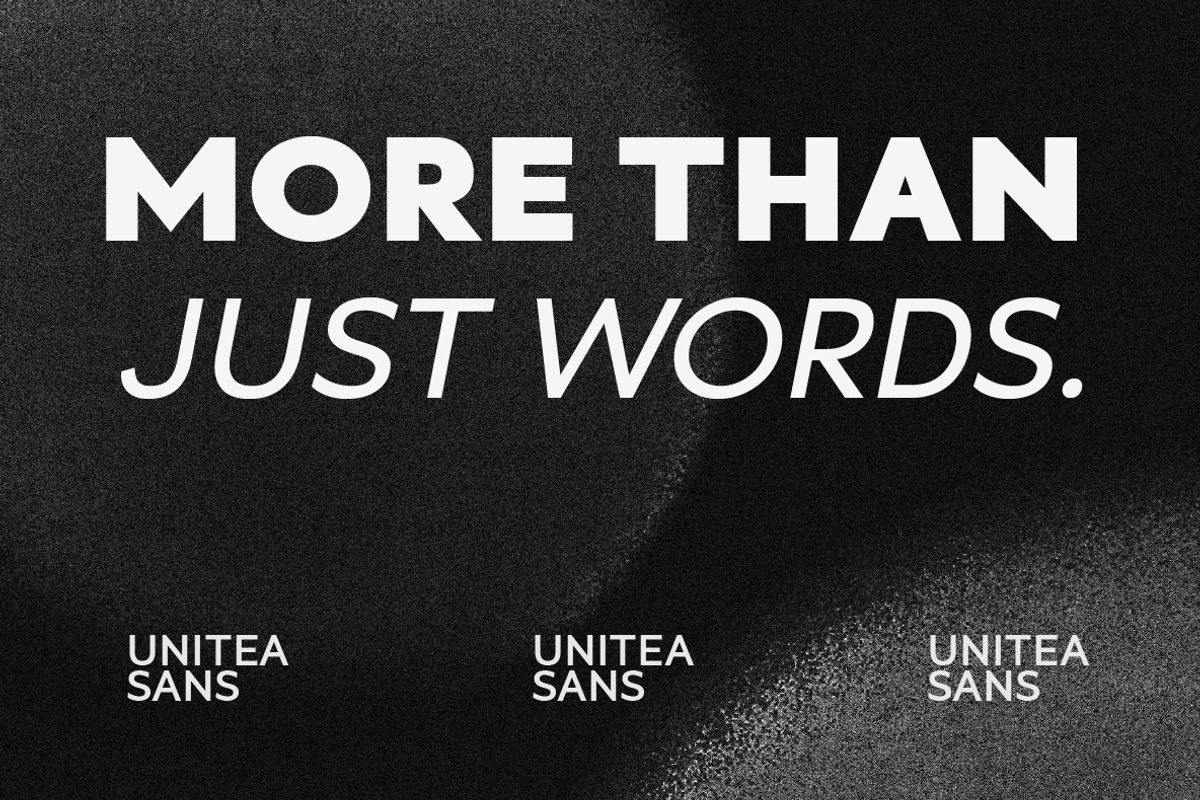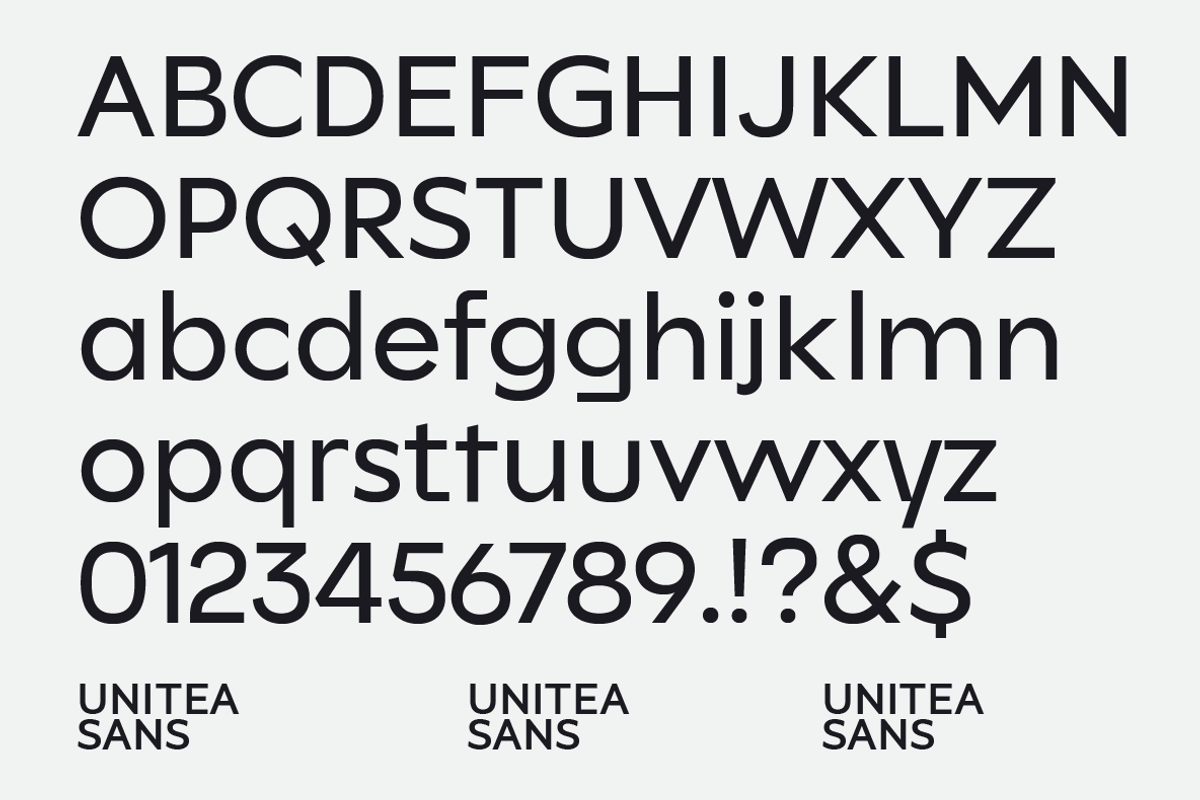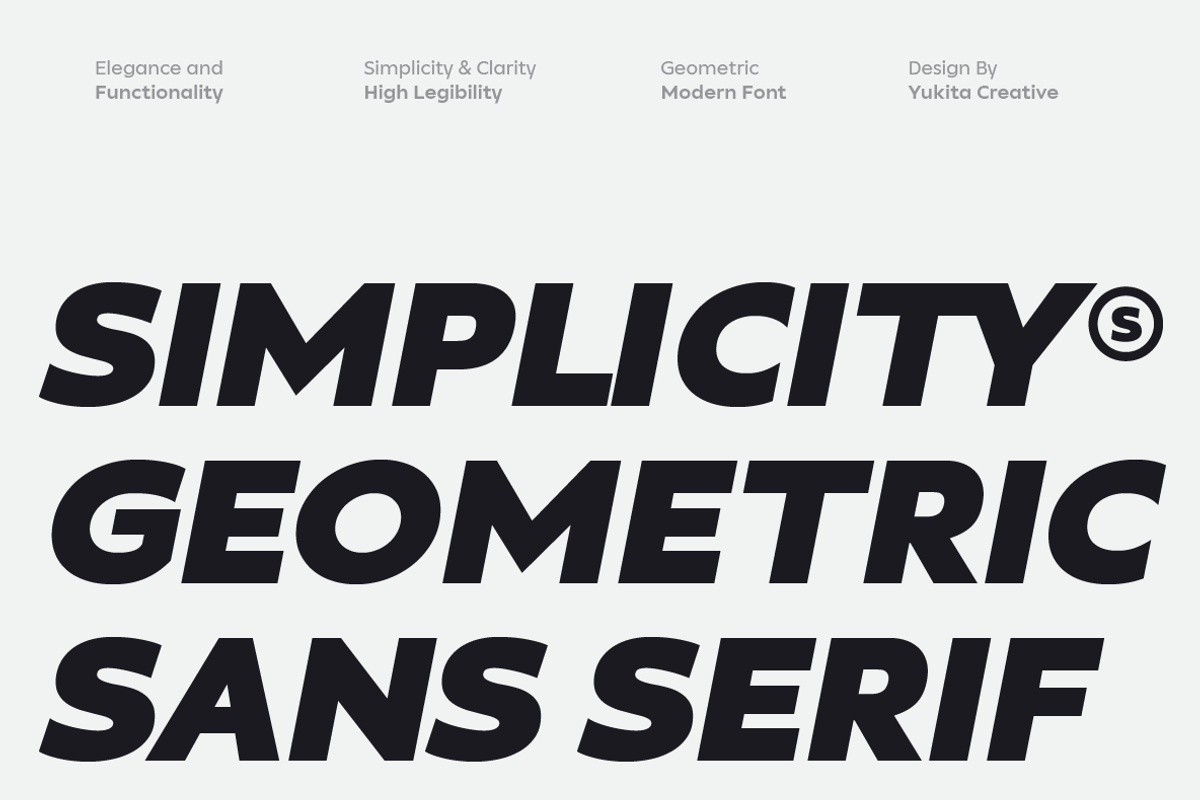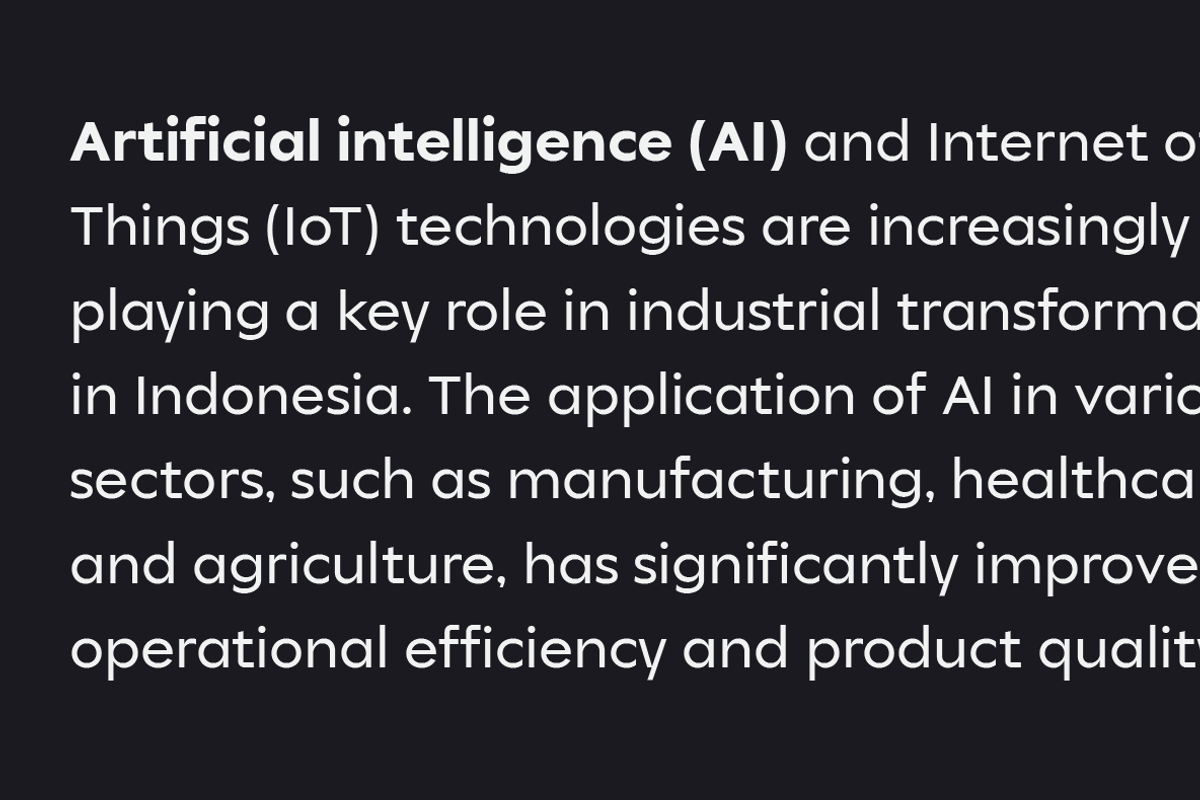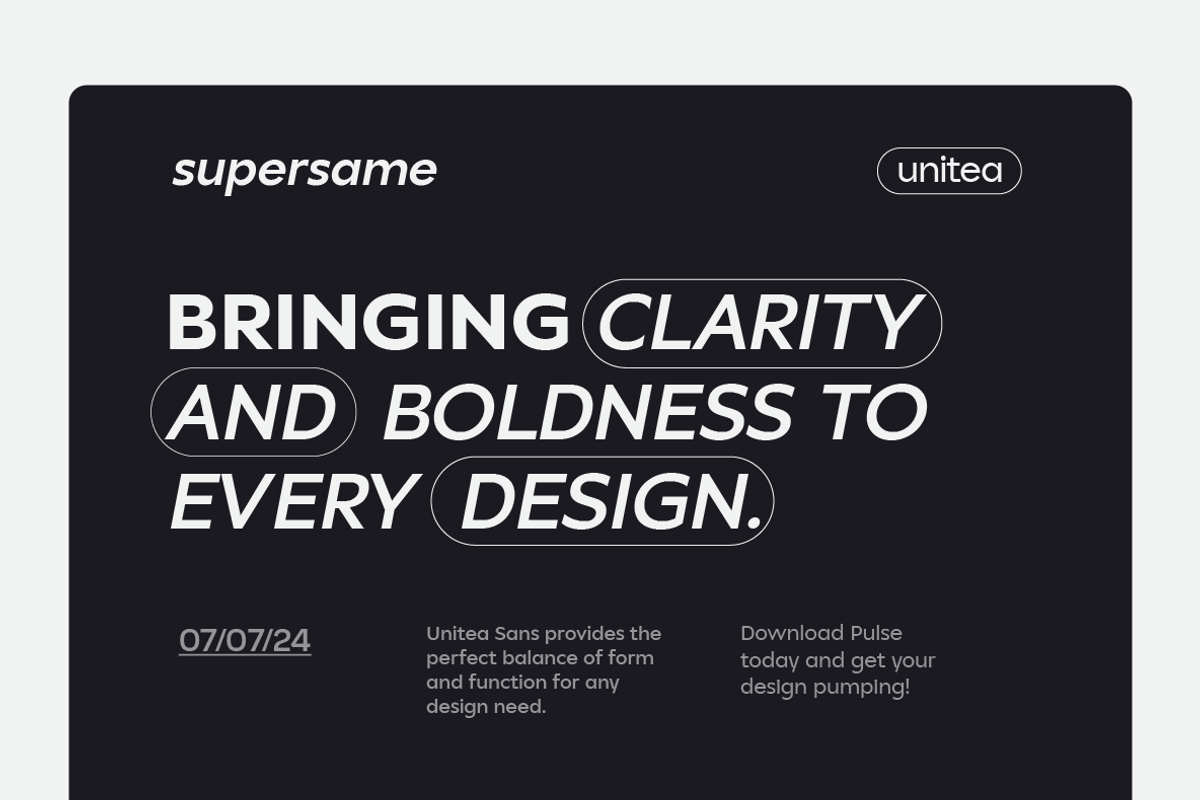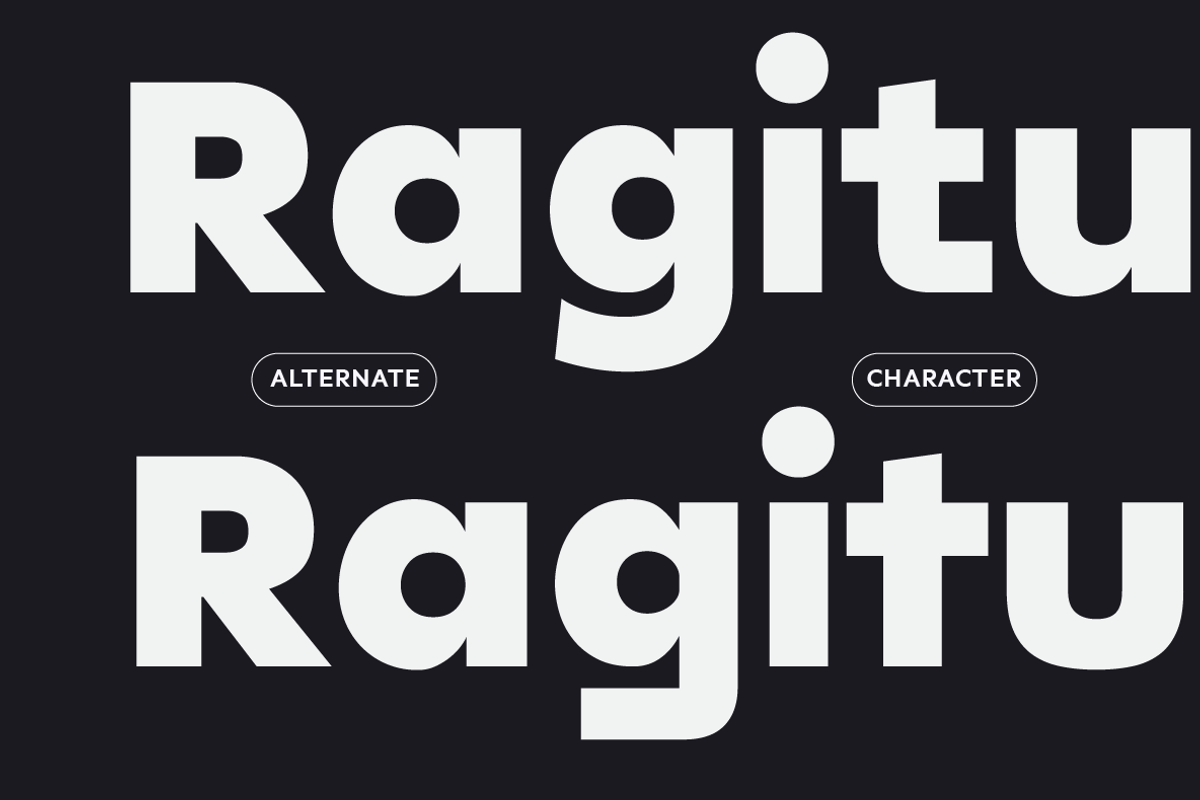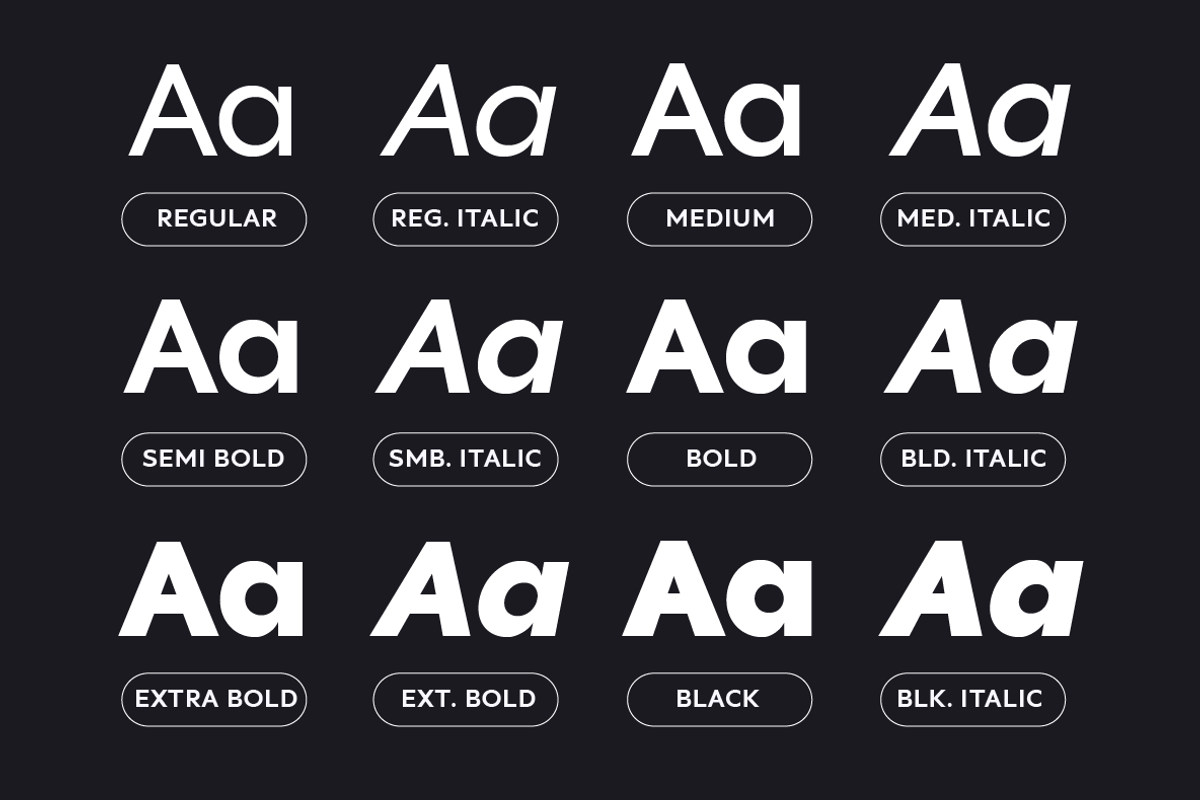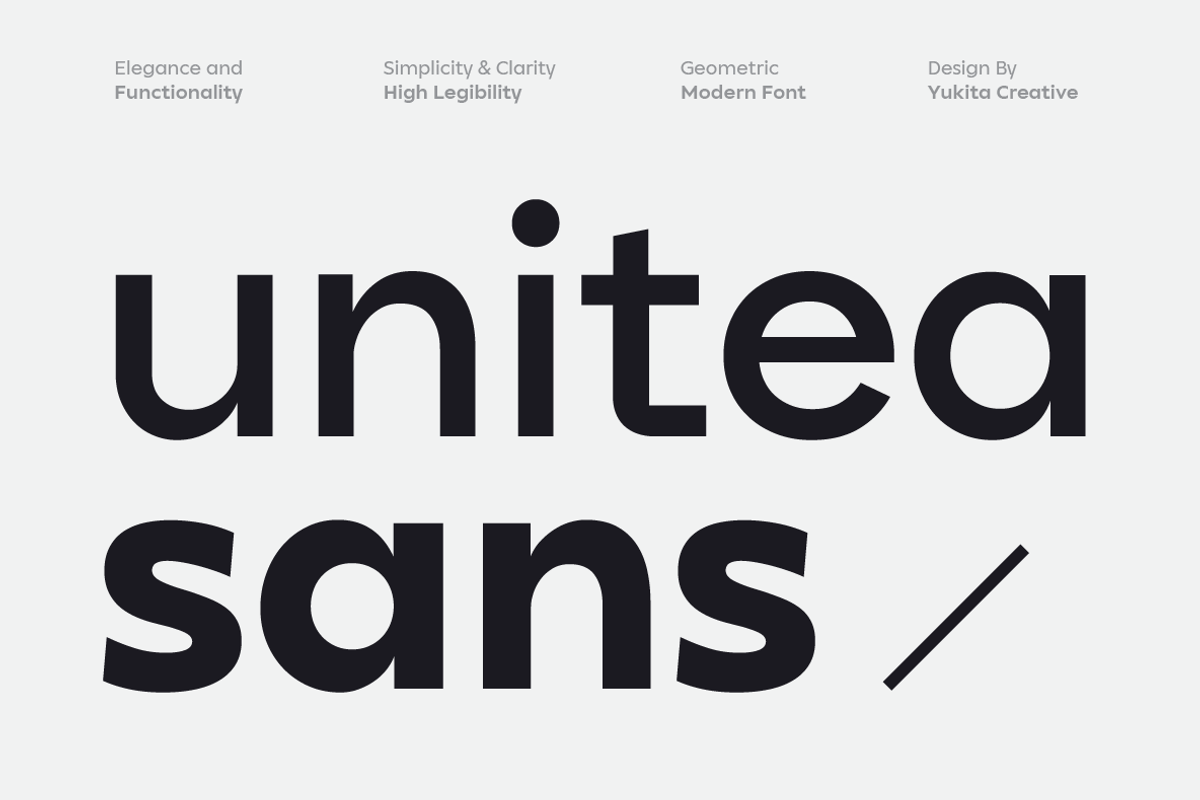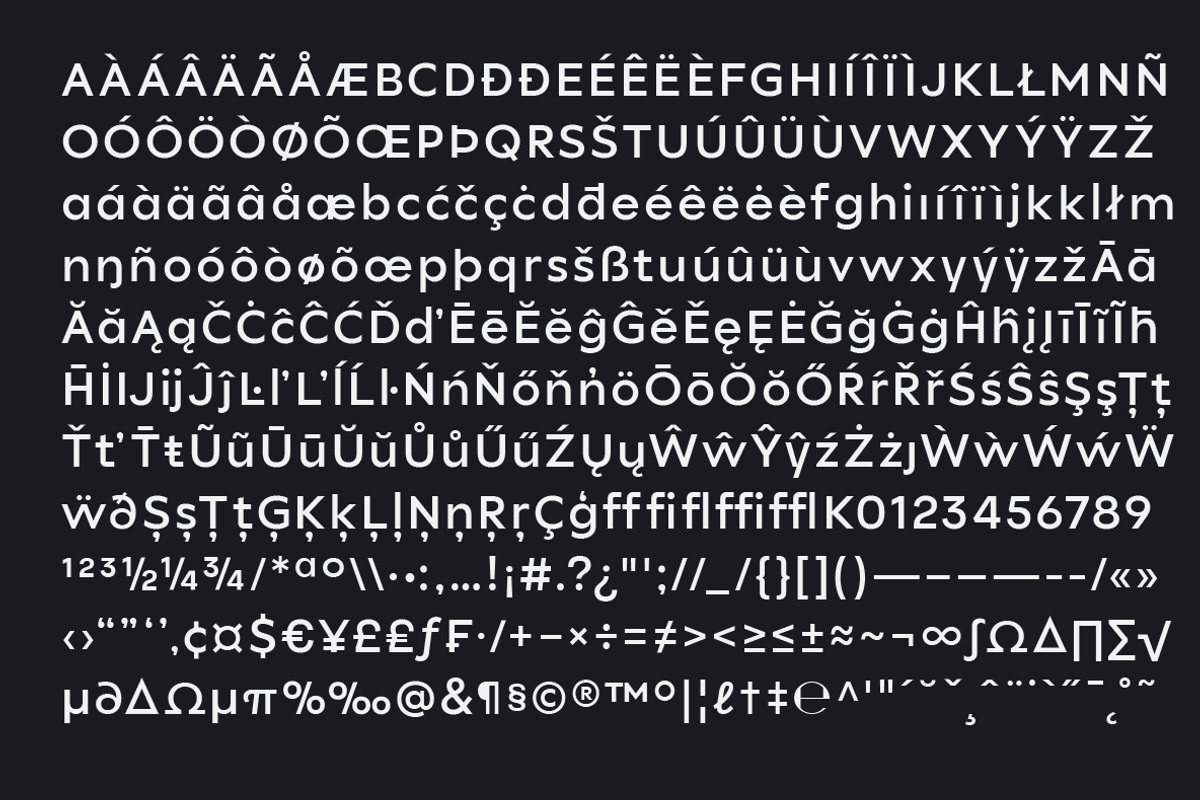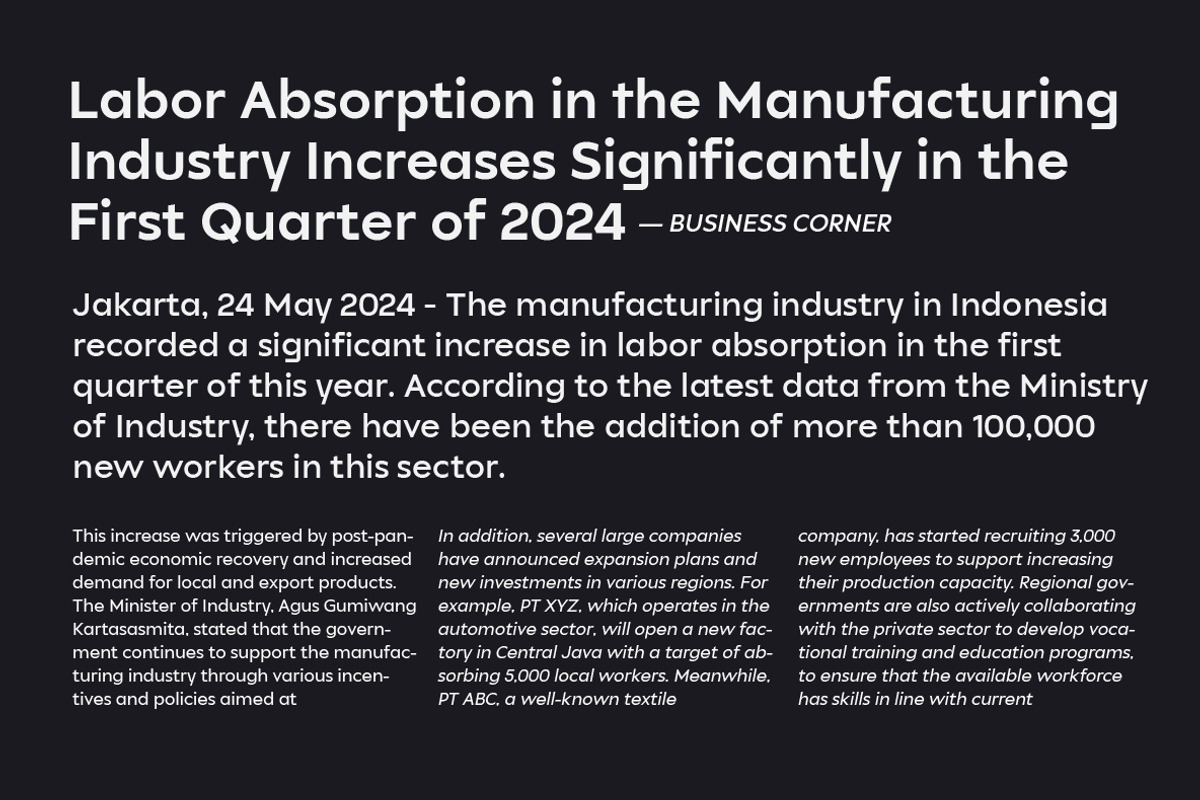
Unitea Sans Serif Family
Unitea Sans is a modern geometric sans serif font family, expertly designed to provide high readability and versatility across various design projects. Featuring six distinct weights from Regular to Black, along with italic slants, this font family offers a complete typographic solution for digital and print media.
- Geometric Precision: Clean, modern shapes for a sleek look.
- High Legibility: Optimized for clear and easy reading.
- Six Weights: From Regular to Black for versatile design options.
- Italic Slants: Matching italics for each weight, adding variety.
- Wide Applicability: Perfect for web design, branding, editorial, marketing, and UI/UX.
- Digital Design: Enhances readability and style for web and UI/UX projects.
- Print Media: Ideal for books, magazines, and brochures.
- Branding: Professional look for logos and corporate materials.
- Marketing Materials: Bold and clear for posters and flyers.